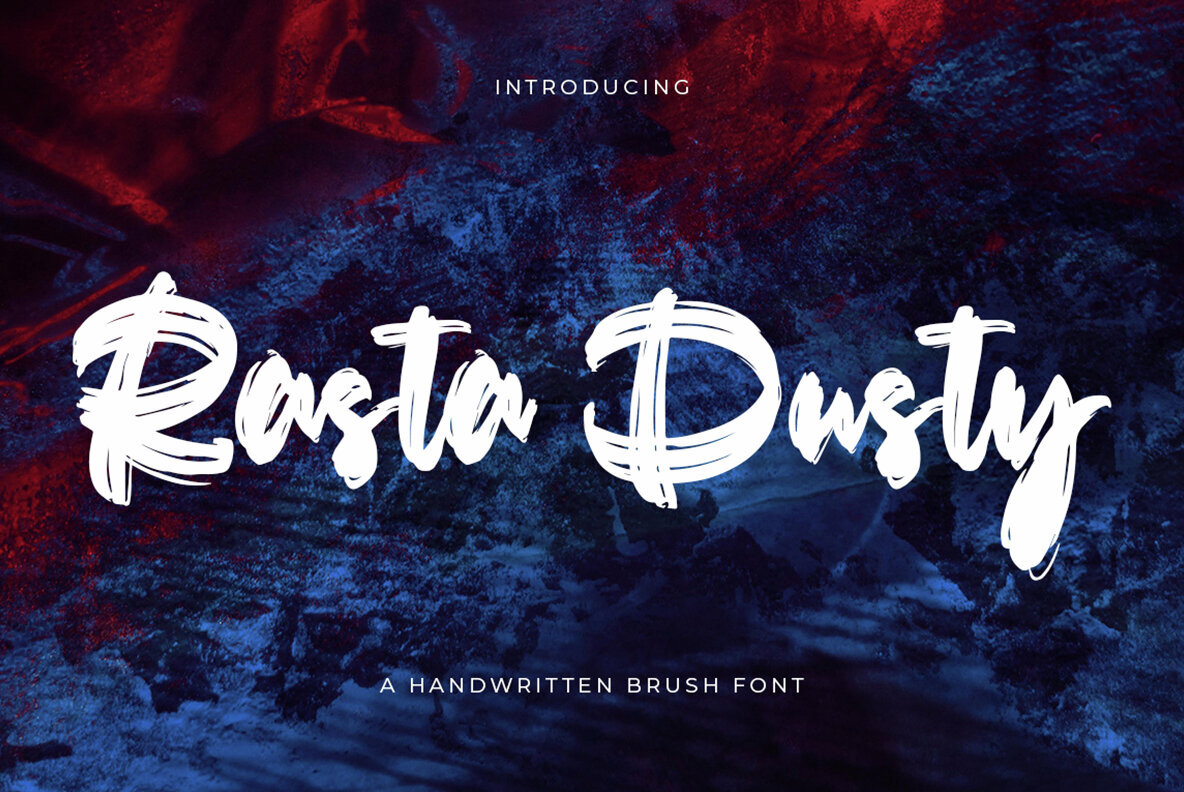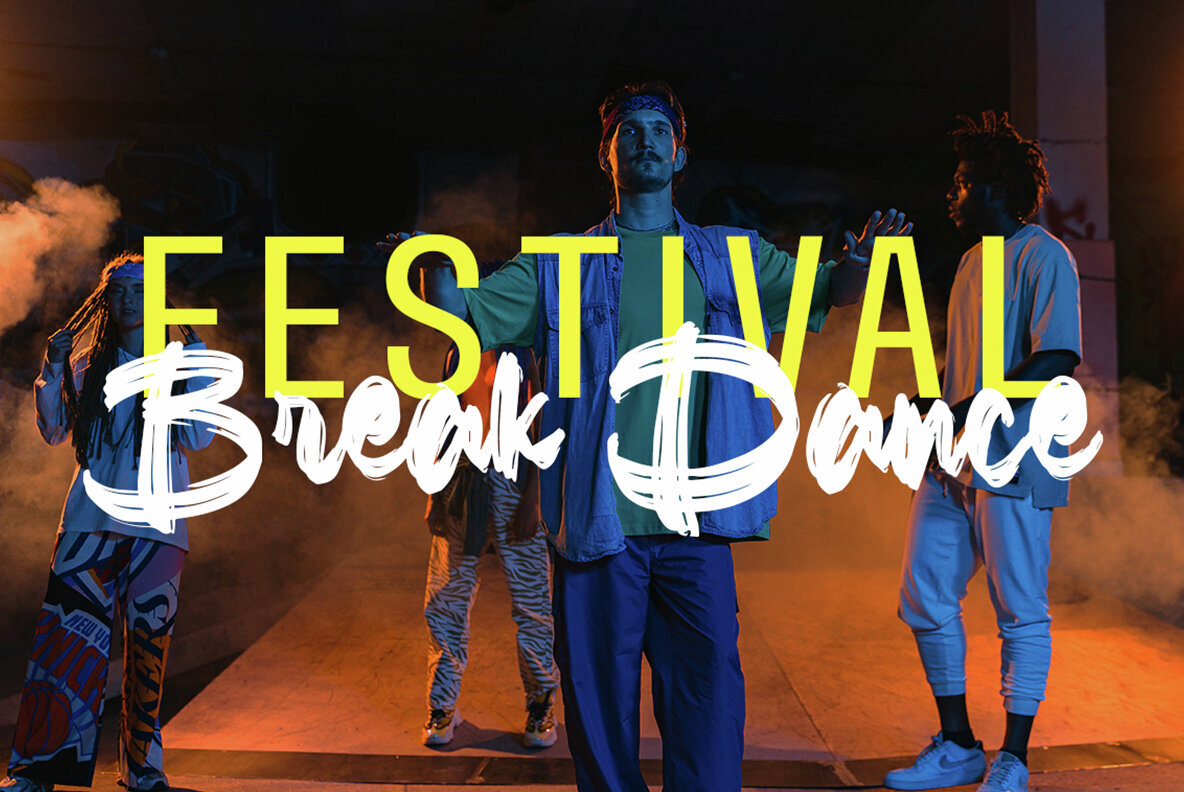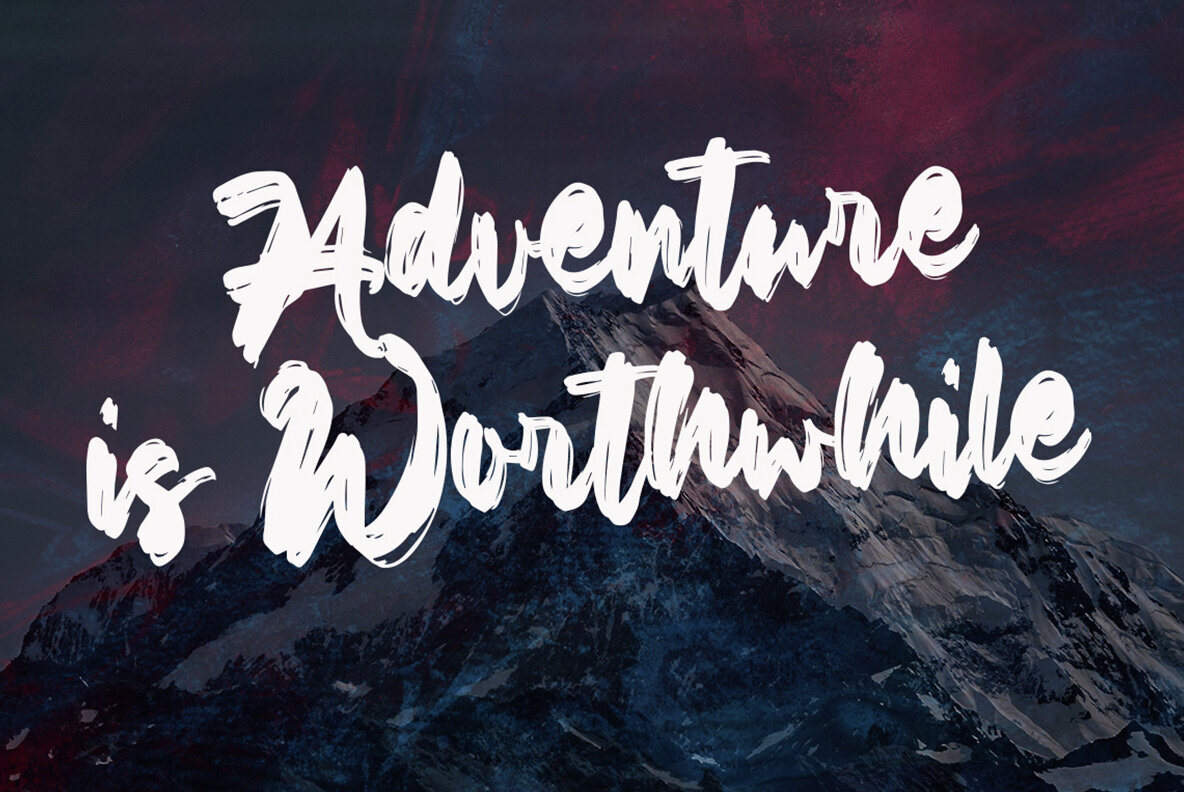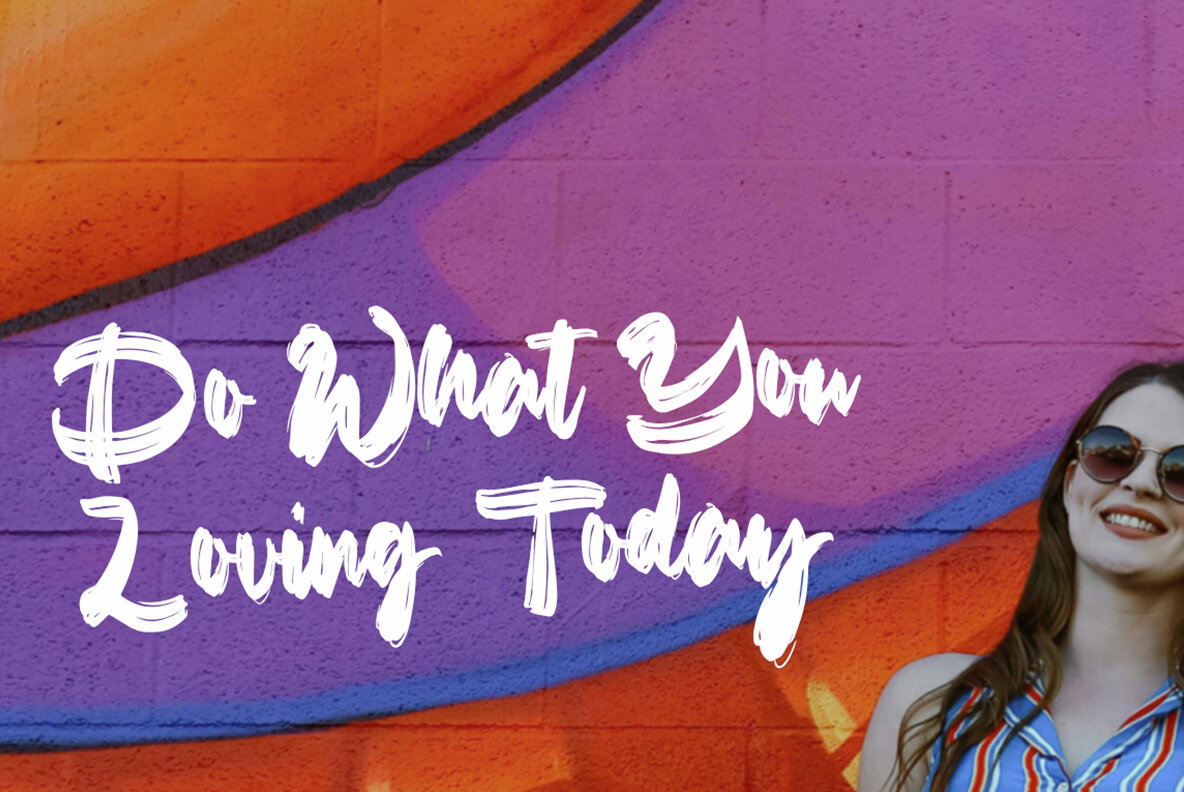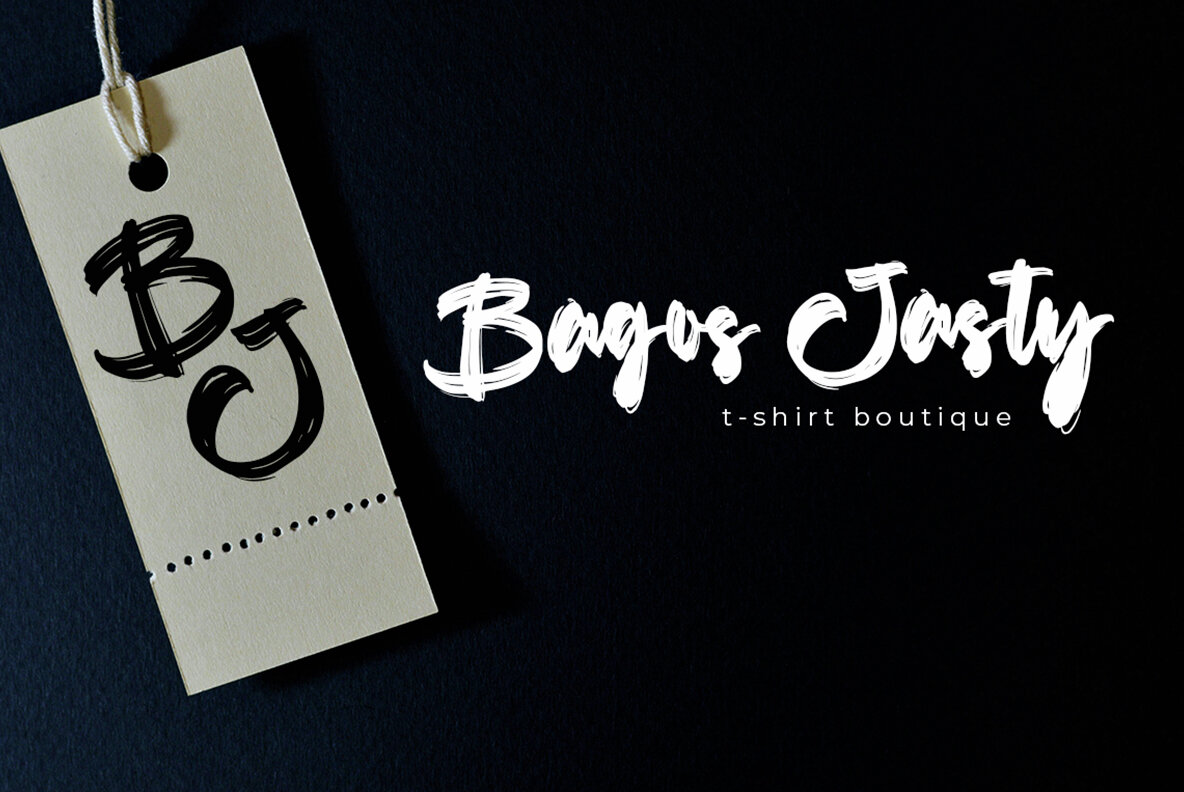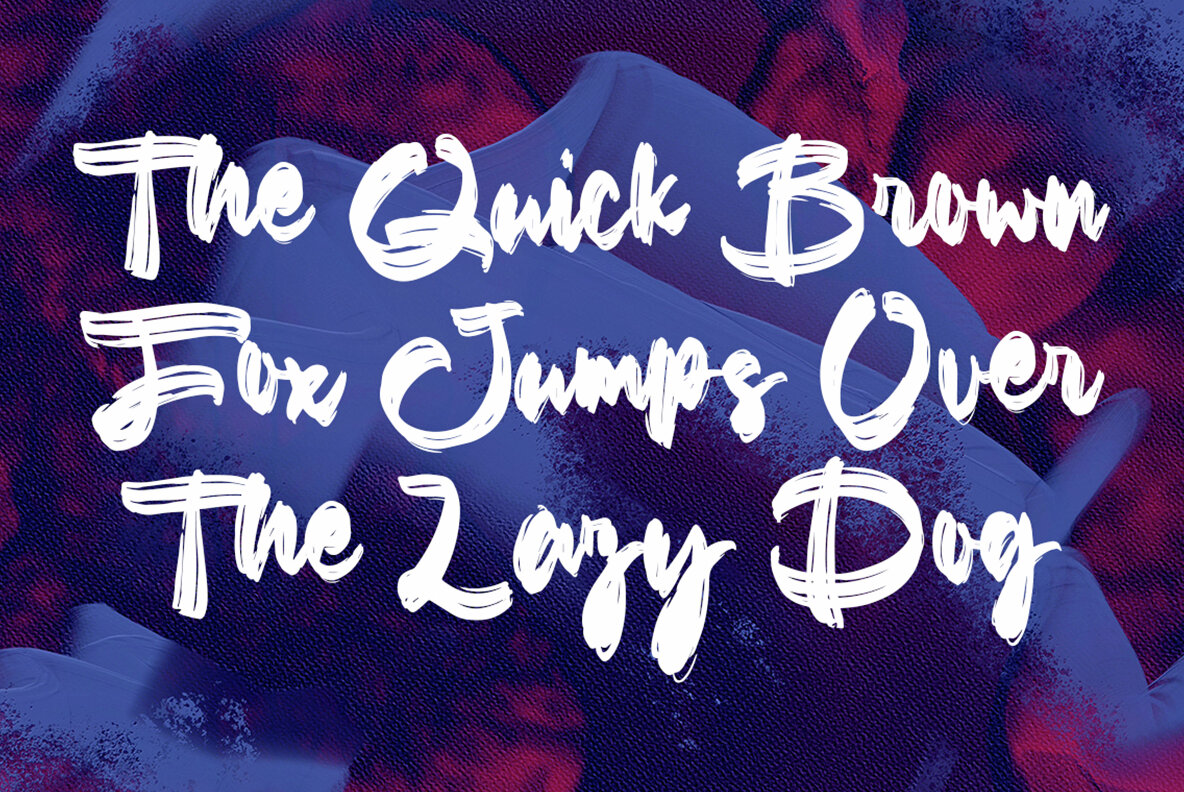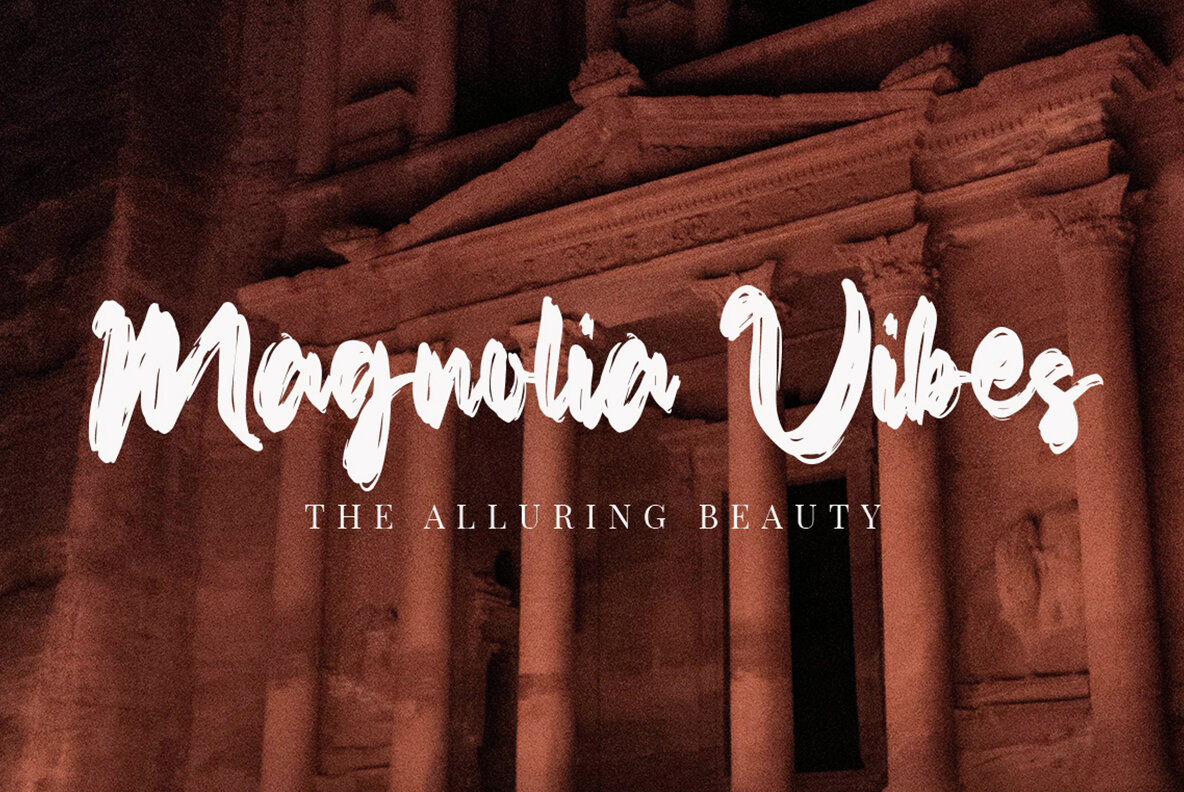
Rasta Dusty Font
Rasta Dusty Regular
Rasta Dusty brings bold, expressive style to your designs with thick, textured strokes that capture the energy of real paintbrush marks. The organic, urban look of each letterform creates a sense of authenticity and spontaneity, lending projects a distinct presence. Playful irregularities and raw edges infuse each character with a handcrafted quality, making it easy to achieve a strong visual impact. This font stands out in both all caps and mixed case settings, maintaining high readability alongside its dynamic personality. Rasta Dusty is especially well-suited for projects needing artistic flair or a rebellious edge. Its energetic design makes it an excellent fit for: Choose Rasta Dusty when you want your work to command attention and reflect a sense of movement, attitude, and creative energy.Rasta Dusty: Expressive Handwritten Brush Font